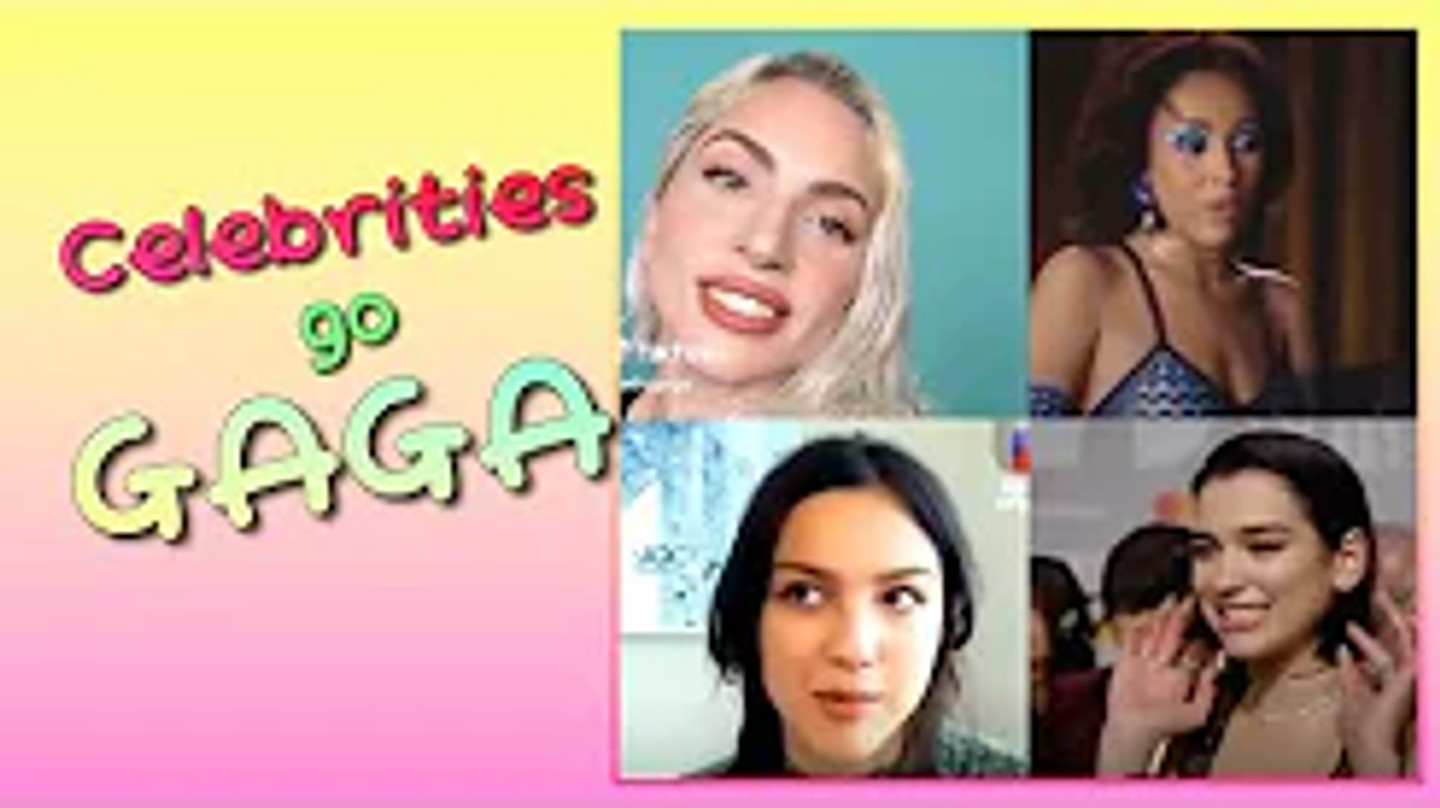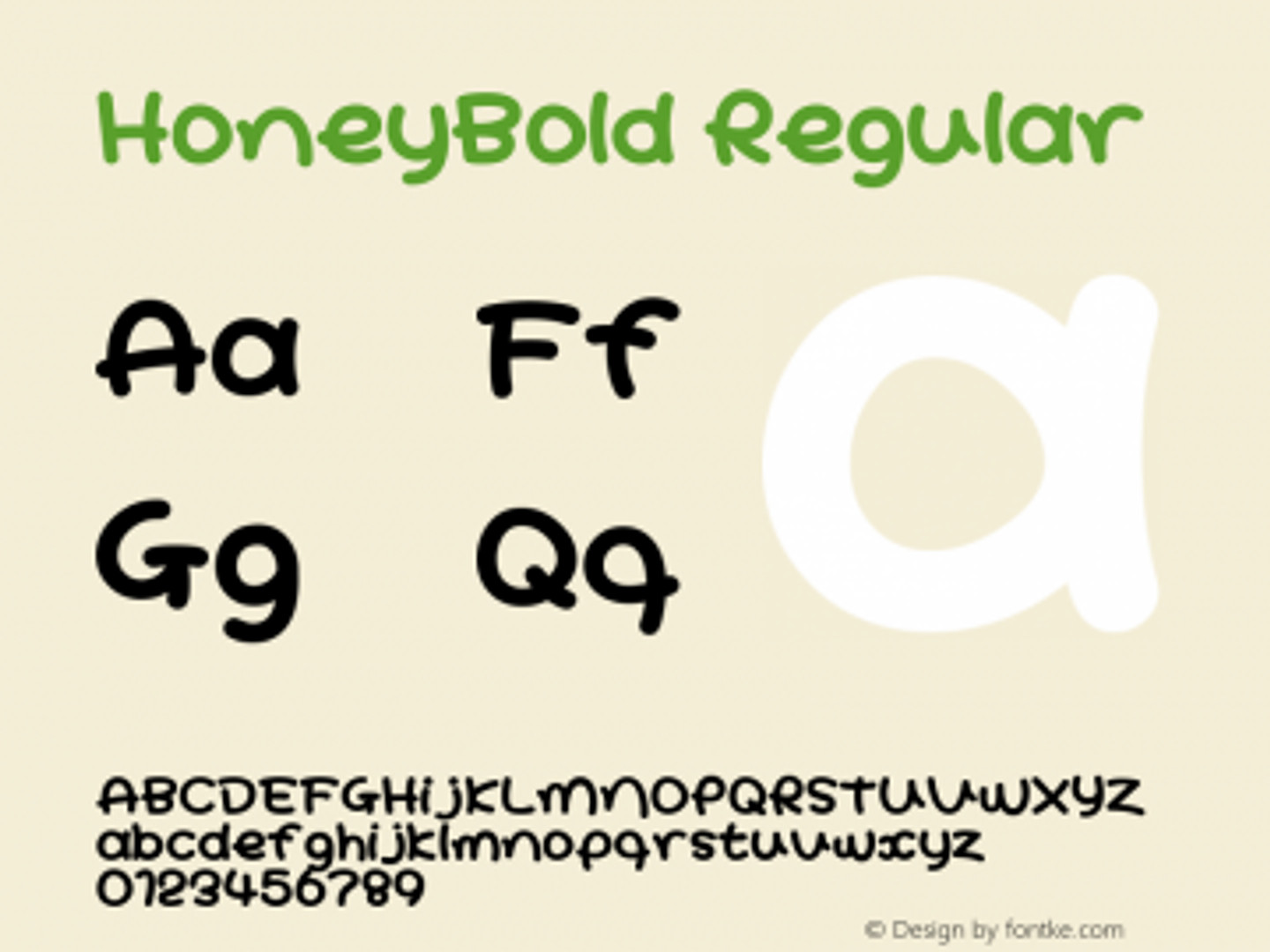
It also appears in numerous Invincible Youth Soshisubs subtitles so it's familiar to me the font in the thumbnail.
HoneyBold
HoneyBold & HoneyLight
It's so cute that anyone can used this already LOL